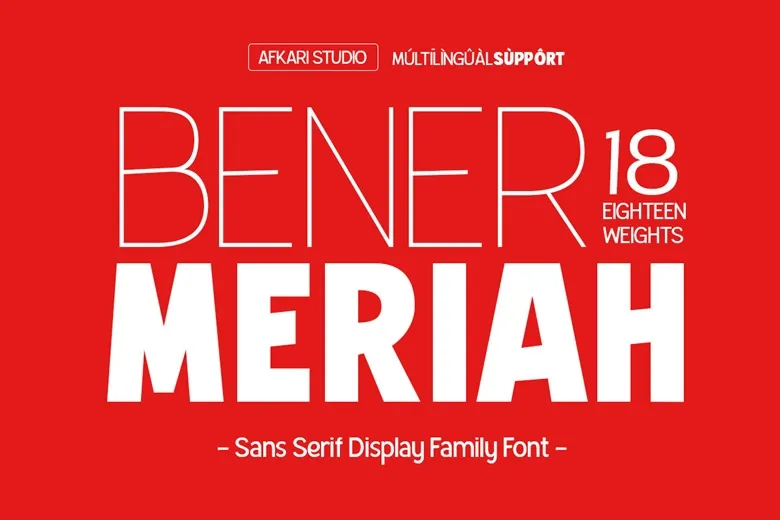
Bener Meriah is a modern and very customizable sans serif font family perfect for designers who need both style and utility. It comes in a stunning 18 weights from ultra fine thin to ultra strong black with italic styles for all the weights. This leads to the creation of a versatile tool box that caters for the needs of today’s design projects in different styles and uses. As such, Bener Meriah should be able to fit in any creative niche it is placed in.